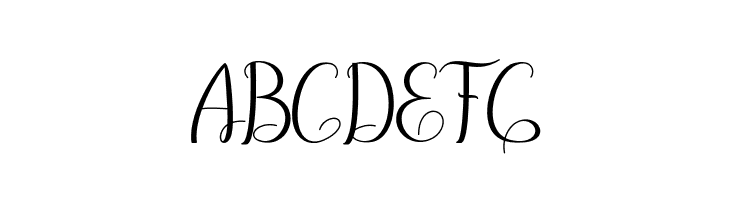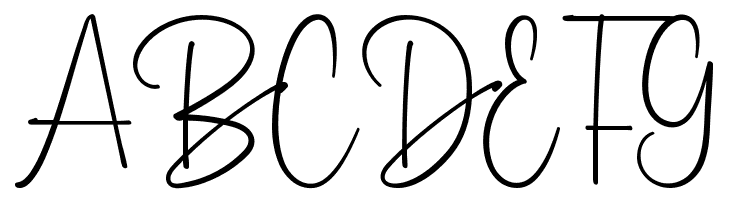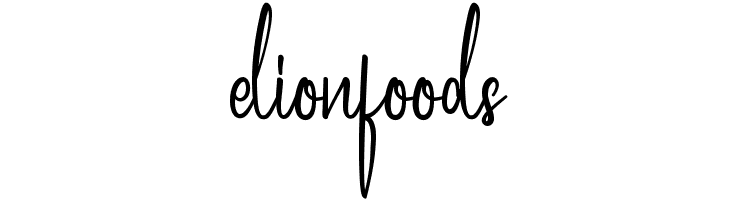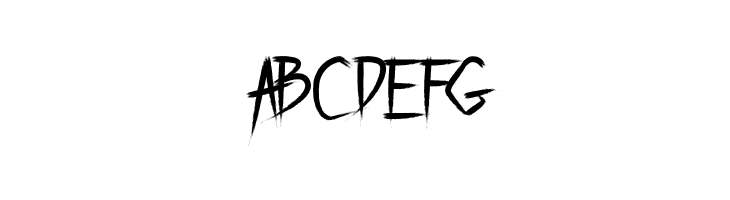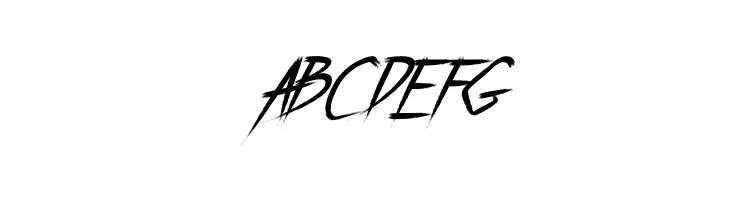
An elegant, cursive font with a graceful, handwritten style.
A modern, elegant script font with flowing curves and delicate strokes.
A playful, handwritten font with flowing, cursive-like strokes.
A casual, handwritten font with elongated, slightly slanted characters.
A bold, dynamic font with sharp, angular edges and a fierce, energetic style.
A bold, dynamic font with sharp, angular edges and an aggressive flair.
A playful, ink-splatter-inspired font with a dynamic, dotted design.
A dynamic, edgy font with sharp, angular strokes and an italicized appearance.
An edgy, hand-drawn font with sharp, elongated strokes and a distressed texture.